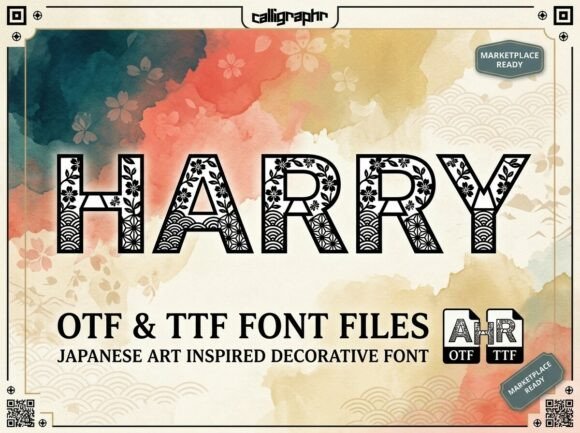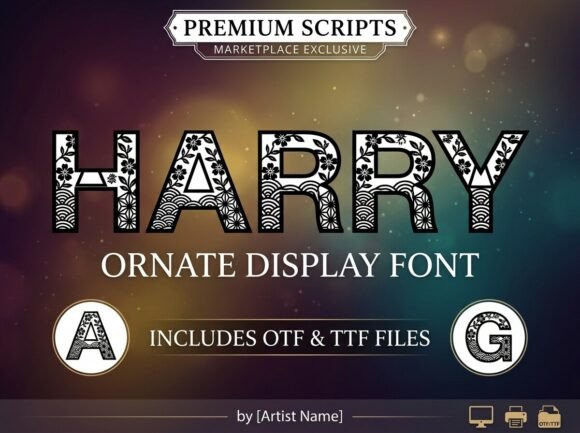
Introducing Harry Font: A Stunning Decorative Display Font
Are you tired of using the same old fonts for your designs? Do you want to make a statement and break away from the ordinary? Look no further than Harry Font, a unique and artistic display font that’s sure to turn heads. In this article, we’ll take a closer look at what makes Harry Font special and how it can elevate your designs.
Harry Font is a decorative display font that’s designed to be the center of attention. With its strong visual personality and unique artistic elements, this font is perfect for creators who want to make a bold statement. Whether you’re working on a logo, headline, or packaging design, Harry Font is sure to grab attention and leave a lasting impression.
One of the best things about Harry Font is its versatility. This font is perfect for a wide range of design applications, from bold headlines and artistic logos to creative packaging and more. And with its professional and polished finish, you can use it with confidence, knowing that your designs will look great across various mediums.
Before you make a purchase, it’s essential to note that Harry Font is an ALL-CAPS (Uppercase Only) display typeface. This means that it does not include lowercase letters. However, this is by design, as Harry Font is specifically crafted for high-impact headlines, logos, and decorative initials where every letter is a work of art.
Harry Font is an excellent choice for designers and crafters who want to add a touch of elegance and sophistication to their work. With its unique and artistic design, this font is perfect for:
- Logos and branding – Make a bold statement with your logo and create a lasting impression on your customers.
- Headlines and titles – Add a touch of drama and flair to your headlines and titles with Harry Font’s unique design.
- Packaging design – Elevate your packaging design with a font that’s both professional and eye-catching.
- Artistic projects – Whether you’re working on a personal project or a client’s, Harry Font is the perfect choice for adding a touch of creativity and flair.
Tips for Using Harry Font
To get the most out of Harry Font, here are a few tips to keep in mind:
- Use it sparingly – Because of its bold and eye-catching design, it’s best to use Harry Font sparingly to avoid overwhelming your design.
- Experiment with colors and textures – Don’t be afraid to experiment with different colors and textures to add depth and interest to your design.
- Pair it with a simple font – For body text and other smaller design elements, pair Harry Font with a simple font to create visual contrast and hierarchy.
Harry Font is a stunning decorative display font that’s perfect for designers and crafters who want to add a touch of elegance and sophistication to their work. With its unique artistic elements, strong visual personality, and versatility, this font is sure to elevate your designs and make a lasting impression. So why wait? Get Harry Font today and start creating stunning designs that demand attention!